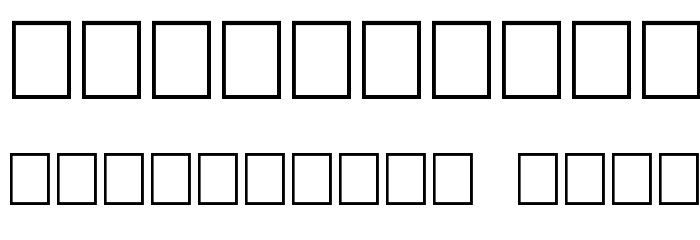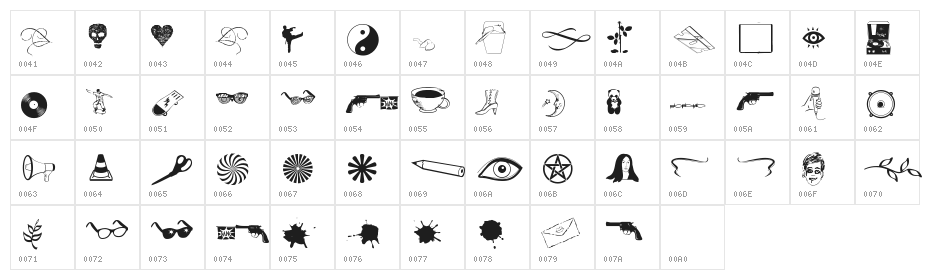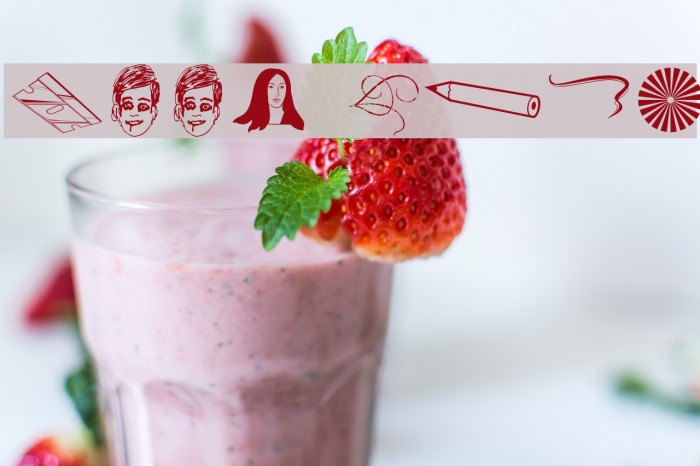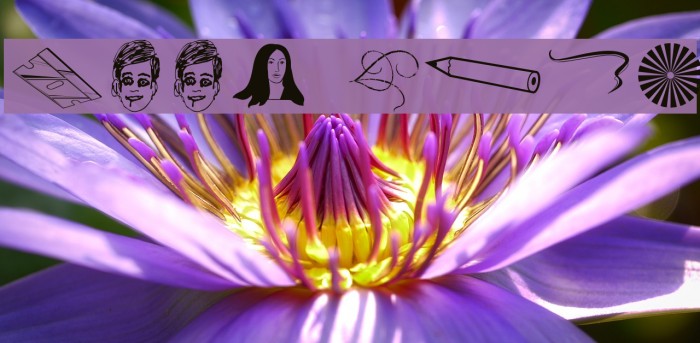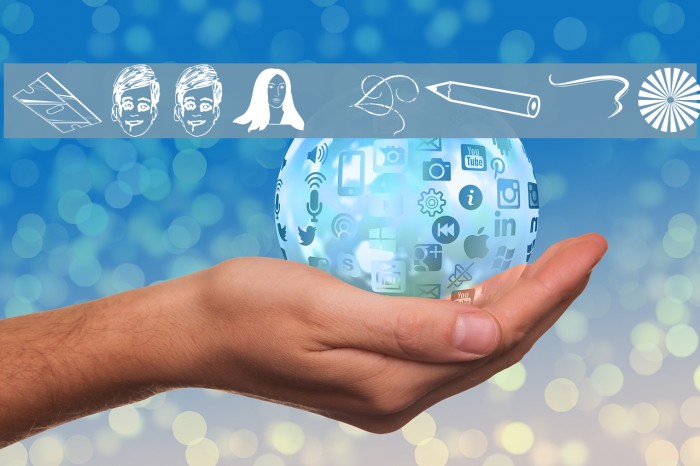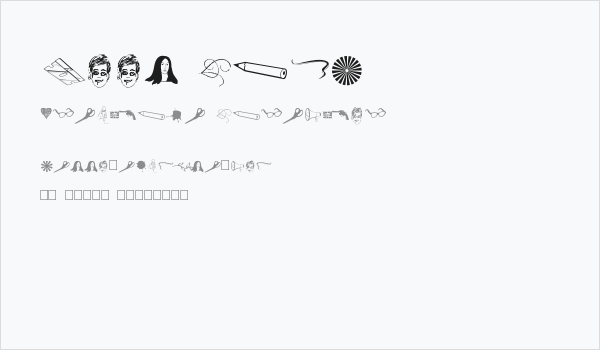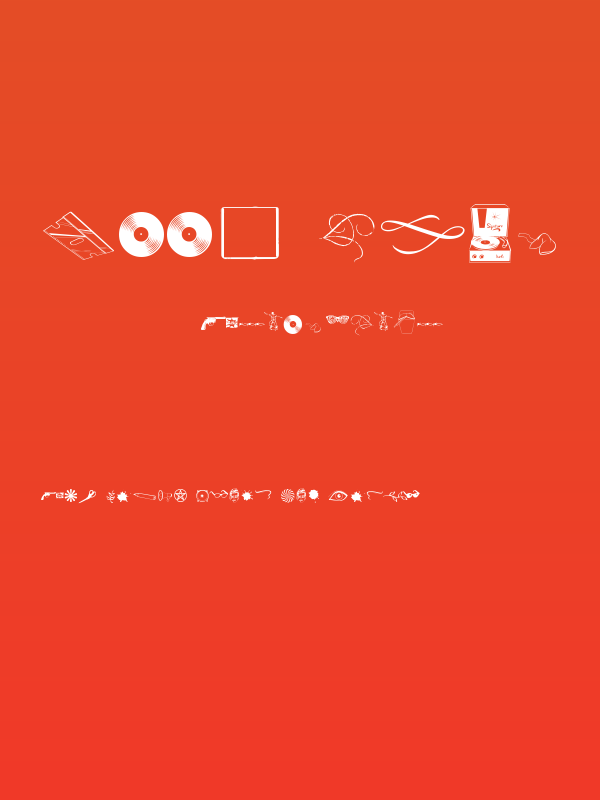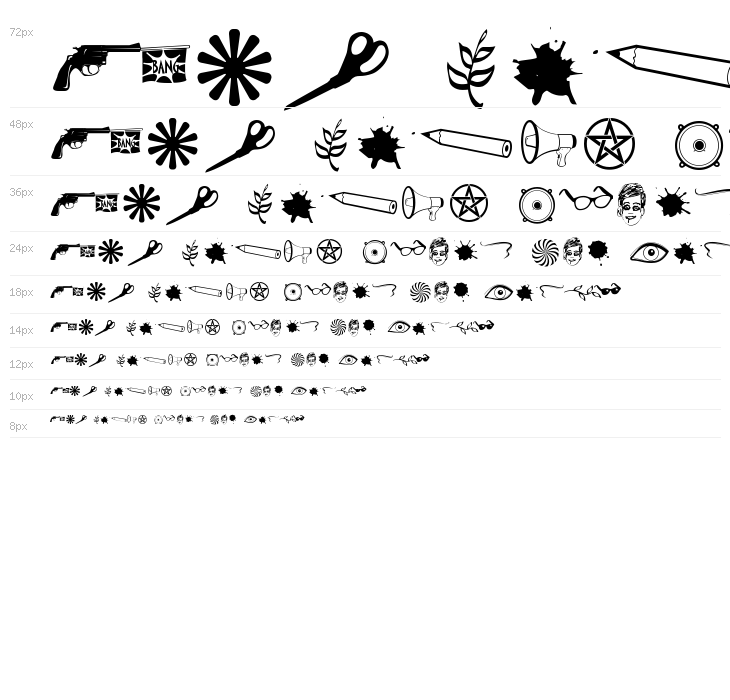
Kool Ding Font
Kool Ding Description
A decorative dingbat font featuring a diverse collection of hand-drawn icons and symbols, including objects, faces, abstract shapes, and pop culture references, all rendered in a playful, sketch-like black and white style.
| Overall Style | Decorative, Playful, Eclectic |
| Use Case | Icons, Decorative elements, Creative projects |
| Proposed Projects | Posters, album covers, zines, event flyers, scrapbooking, digital stickers, creative branding. |